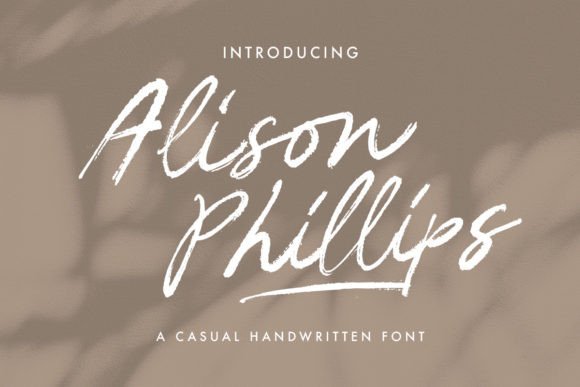
Alison Phillips Casual Handwritten Font: Adding a Touch of Authenticity to Your Designs
In the world of typography, fonts play a crucial role in conveying the tone and personality of a brand or design. With the numerous font options available, it can be challenging to find one that stands out and adds a unique touch to your projects. This is where Alison Phillips, a casual handwritten font, comes into play. Designed to bring a sense of authenticity and personal flair to your designs, Alison Phillips is the perfect choice for those looking to add a touch of character to their work.
What is Alison Phillips?
Alison Phillips is a casual handwritten font that boasts a textured brush look, giving it an organic and intimate feel. This font is designed to evoke a sense of uniqueness and character, making it ideal for designers who want to add a personal touch to their projects. With its natural and effortless look, Alison Phillips is perfect for a wide range of design applications, from branding and packaging to social media graphics and blog posts.
Benefits of Using Alison Phillips
So, what makes Alison Phillips an excellent choice for designers? Here are some benefits of using this casual handwritten font:
- Authenticity: Alison Phillips exudes an authentic and genuine feel, making it perfect for brands that want to convey a sense of personality and humanity.
- Uniqueness: With its textured brush look, Alison Phillips stands out from other fonts, adding a touch of character to your designs.
- Versatility: This font is suitable for a wide range of design applications, from digital to print.
- Ease of use: Alison Phillips is easy to read and works well in various contexts, making it a versatile font for designers.
Key Features of Alison Phillips
Alison Phillips comes with a range of features that make it an excellent choice for designers. Some of its key features include:
- Textured brush look: This font boasts a natural, textured look that gives it an organic and intimate feel.
- Casual and handwritten: Alison Phillips has a casual, handwritten feel that makes it perfect for designs that require a personal touch.
- High-quality: This font is designed to deliver high-quality results, with clear and crisp lines that make it easy to read.
Using Alison Phillips in Your Designs
Alison Phillips is a versatile font that can be used in a wide range of design applications. Here are some examples of how you can use this font in your designs:
- Branding: Use Alison Phillips as a primary font for your brand identity, adding a touch of personality and authenticity to your logo and marketing materials.
- Social media graphics: This font is perfect for social media graphics, such as Facebook posts, Instagram stories, and Twitter headers.
- Blog posts: Add a personal touch to your blog posts with Alison Phillips, making your content more engaging and relatable.
- Packaging: Use this font on product packaging to add a touch of character and make your products stand out.
Tips and Tricks for Using Alison Phillips
Here are some tips and tricks to help you get the most out of Alison Phillips:
- Pair with other fonts: Experiment with pairing Alison Phillips with other fonts to create a unique and visually appealing combination.
- Use in combination with images: This font works well with images, so try using it in combination with high-quality images to add depth and character to your designs.
- Adjust font size: Experiment with different font sizes to add emphasis and create visual hierarchy in your designs.
In conclusion, Alison Phillips is a casual handwritten font that offers a unique and authentic touch to your designs. With its textured brush look and natural feel, this font is perfect for designers who want to add a personal touch to their projects. Whether you’re working on branding, social media graphics, blog posts, or packaging, Alison Phillips is an excellent choice. So why not give it a try and see how it can elevate your designs?